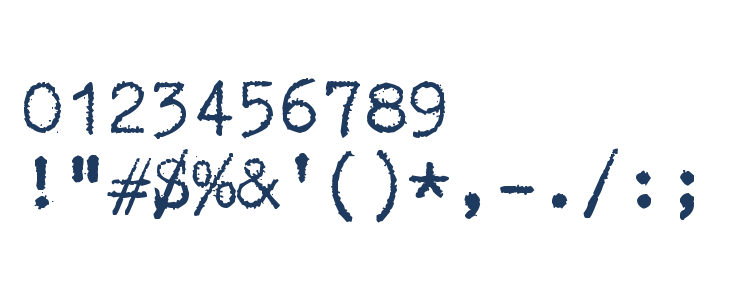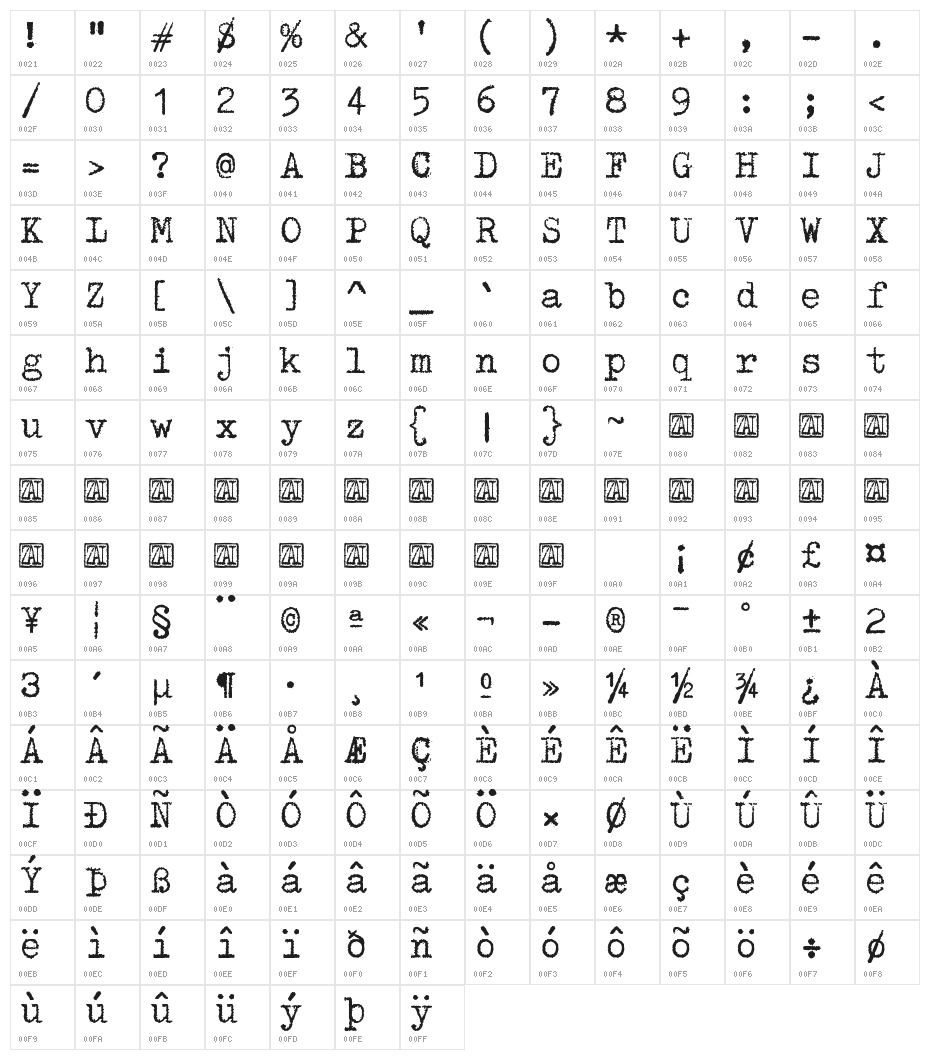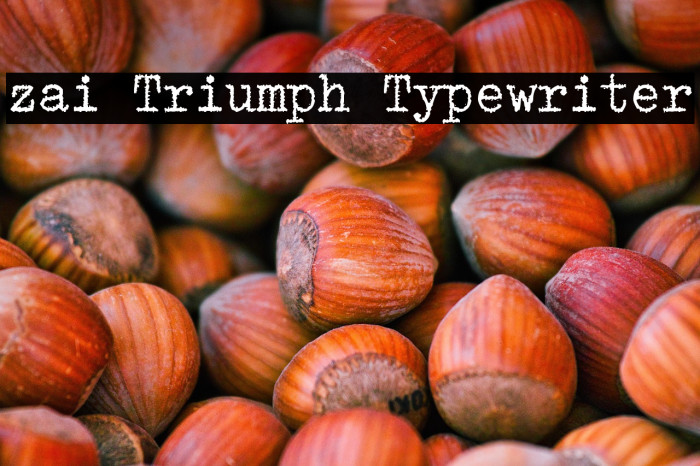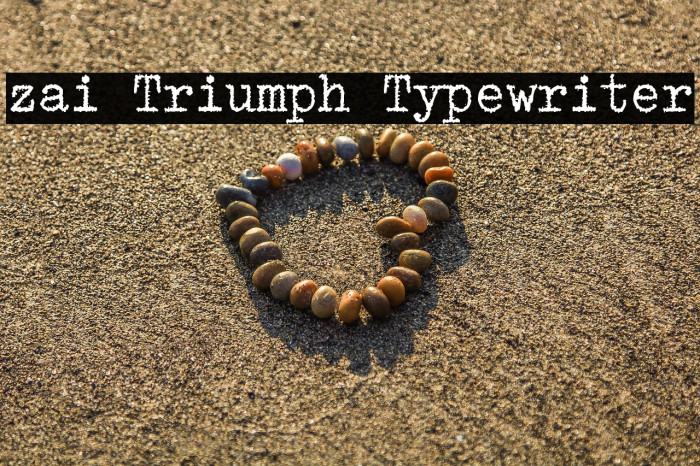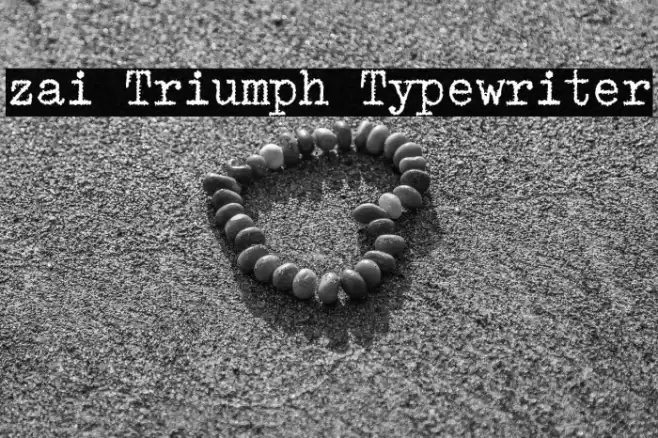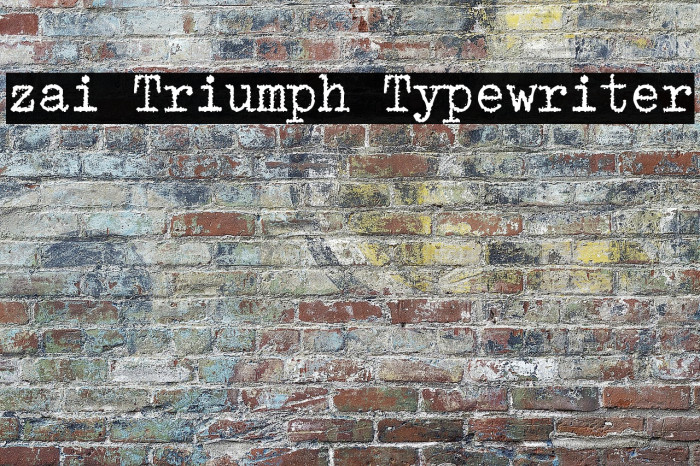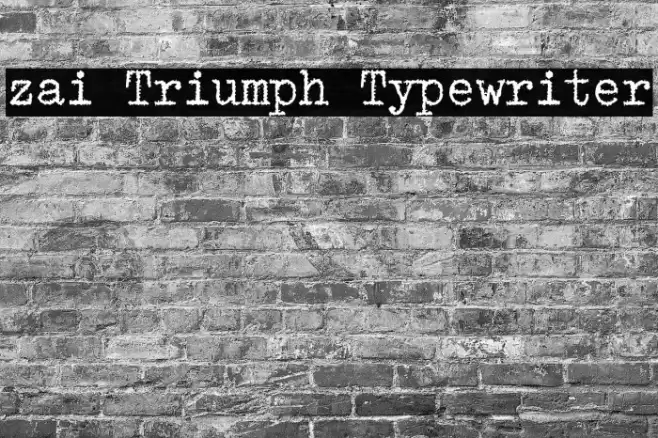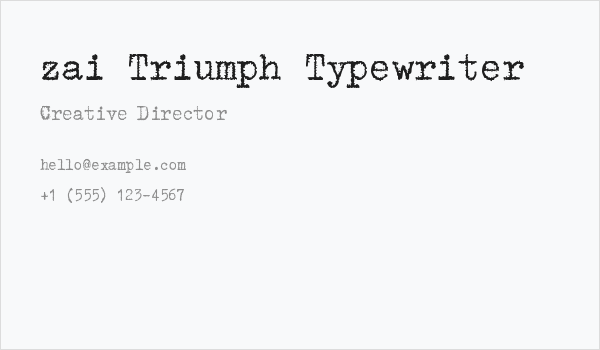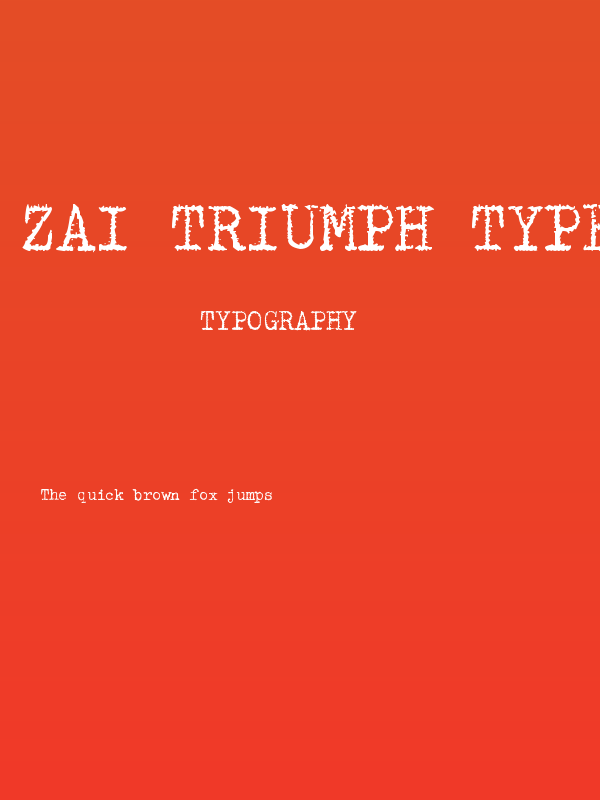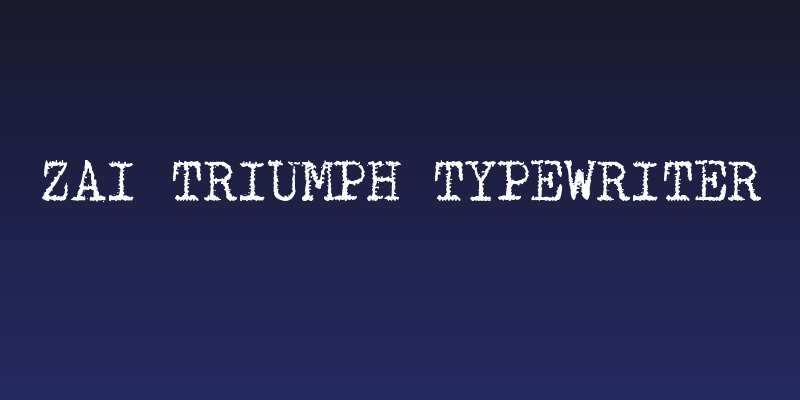
zai Triumph Typewriter Font
zai Triumph Typewriter Description
This typewriter-style font exudes a vintage and rugged charm, characterized by its uneven, distressed edges that mimic the look of ink on paper from an old typewriter. The uppercase and lowercase letters maintain a consistent height, providing a uniform appearance while the numbers and special characters follow suit with the same textured effect. The font's nostalgic appeal is enhanced by its monospaced design, making it ideal for projects that require a retro or analog feel. Its distinct, worn-out look adds personality and authenticity to any design, capturing the essence of a bygone era.
| Proposed Projects | Ideal for retro-themed designs, vintage posters, typewriter art, and projects requiring an authentic, nostalgic touch. |